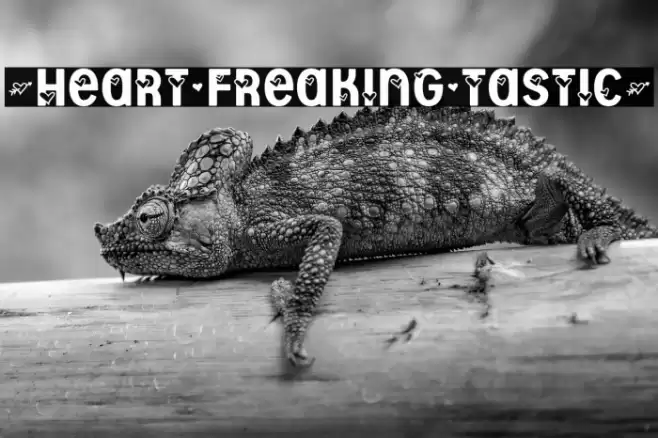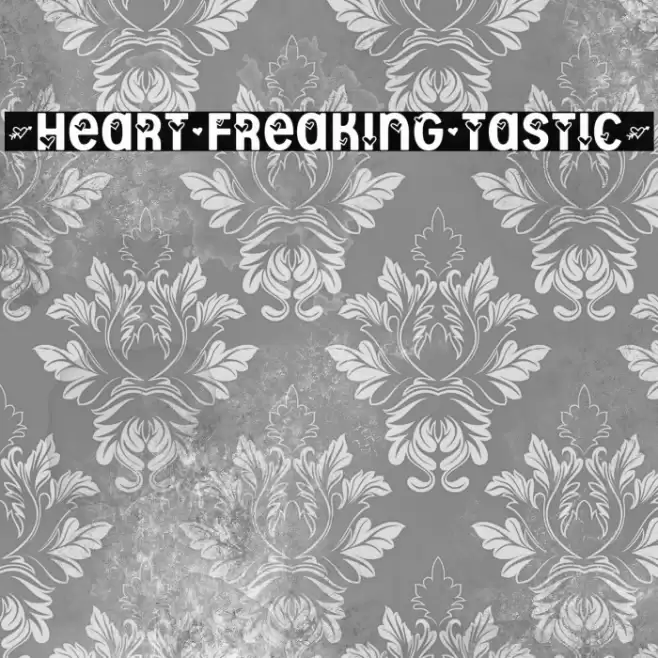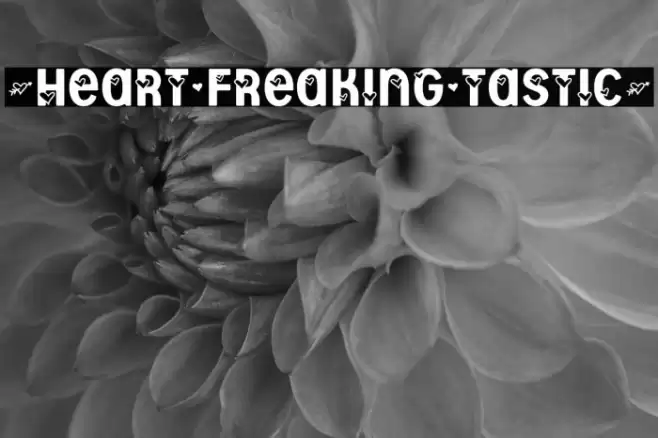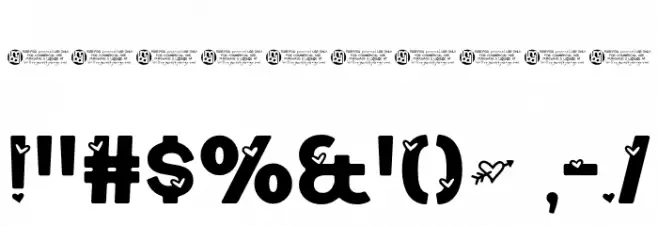
*Heart^Freaking^Tastic* Font
*Heart^Freaking^Tastic* Description
This playful and decorative font features bold, thick strokes with heart motifs integrated into each character, giving it a whimsical and romantic feel. The uppercase and lowercase letters maintain a consistent style, with the hearts adding a unique touch to the overall design. The numbers and special characters also incorporate these heart elements, ensuring a cohesive look throughout. The font's boldness and decorative nature make it stand out, perfect for projects that require a touch of fun and creativity.
A bold, decorative font with heart motifs for a playful, romantic style from Regular fonts.
- Proposed Projects: Ideal for Valentine's Day cards, wedding invitations, love-themed posters, and playful branding projects.
- Use Case: Logos, Headlines, Invitations